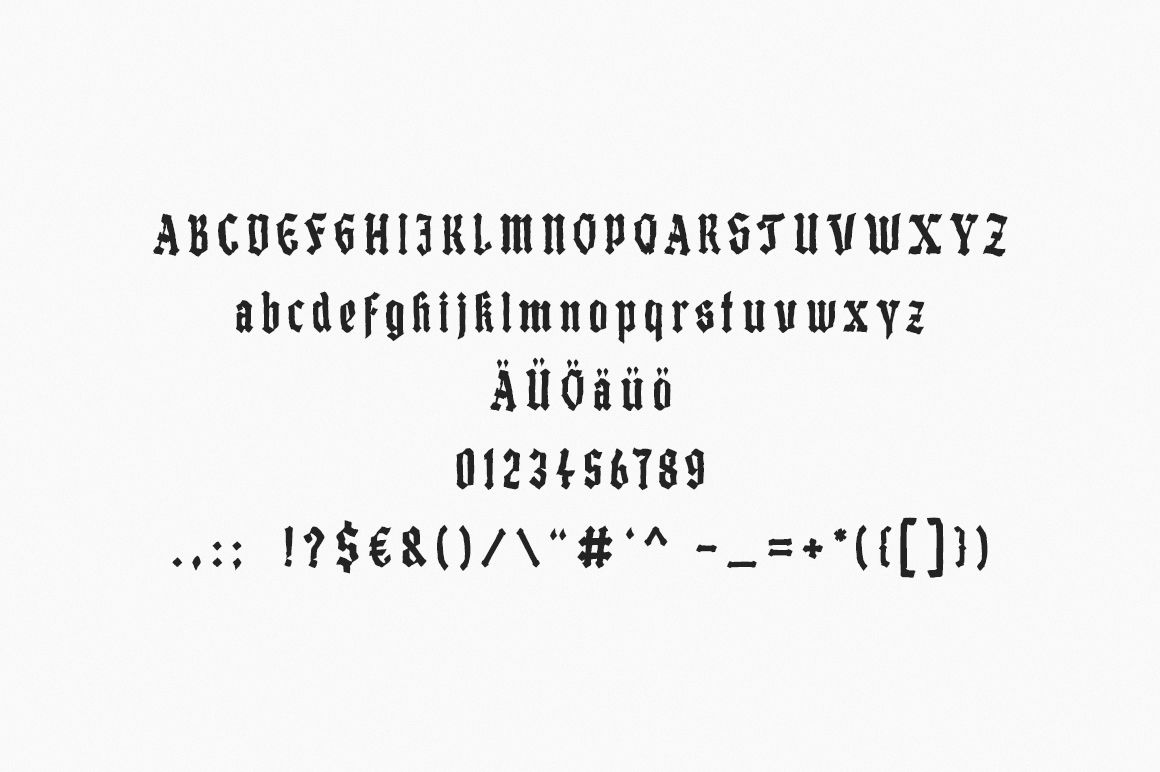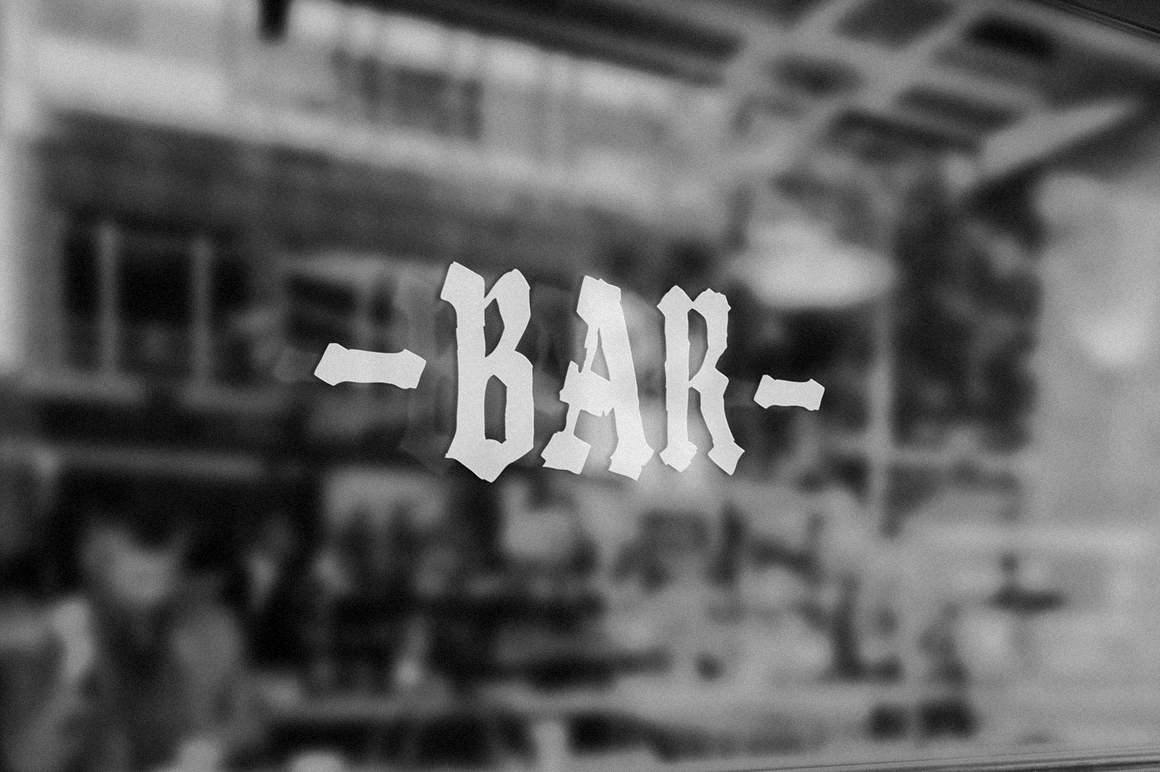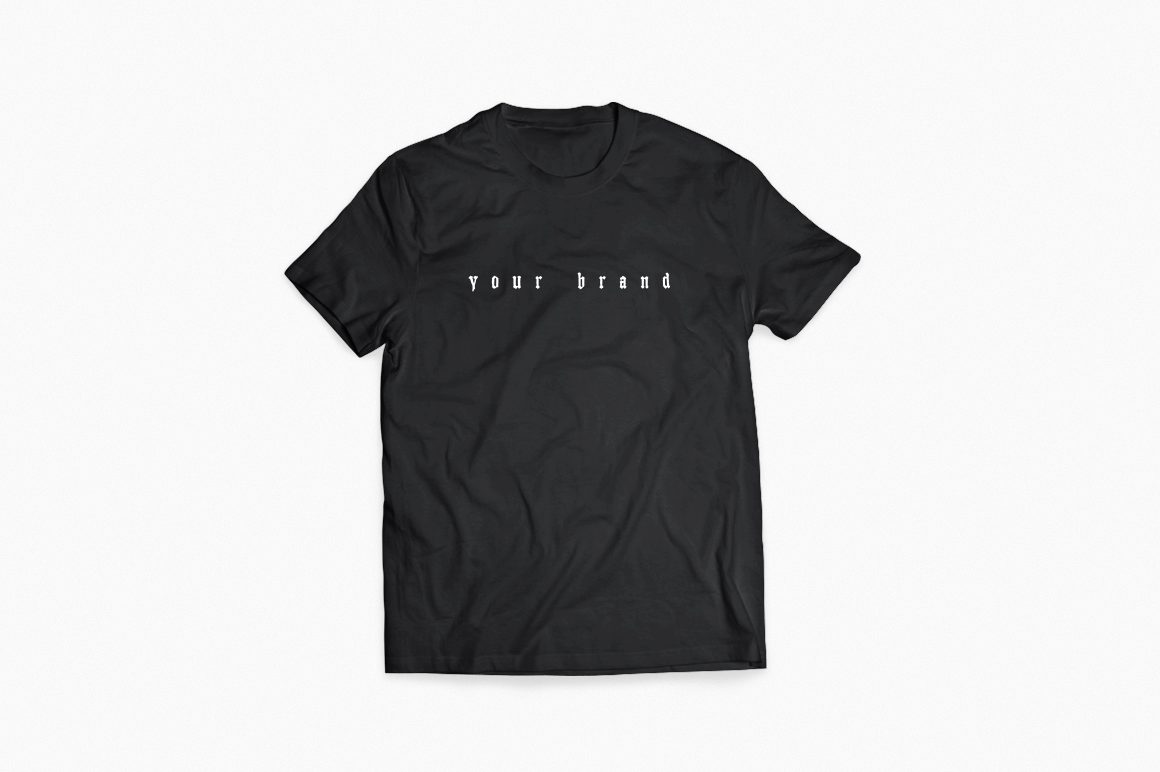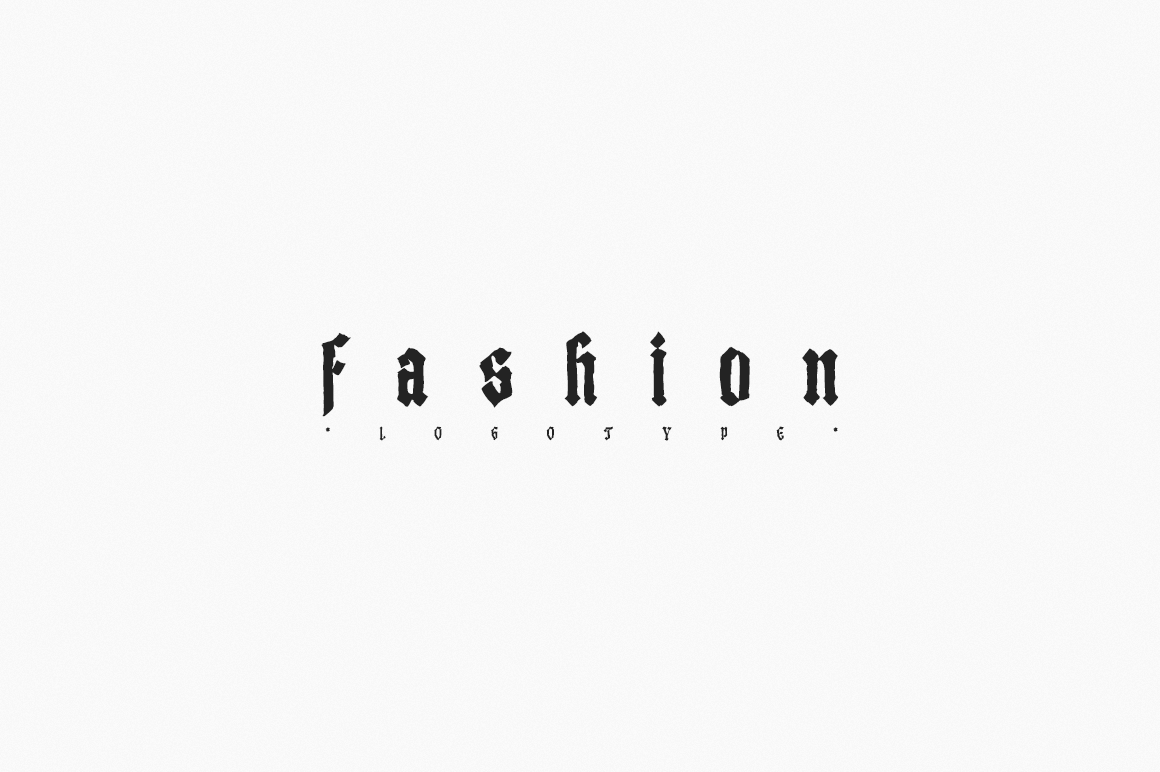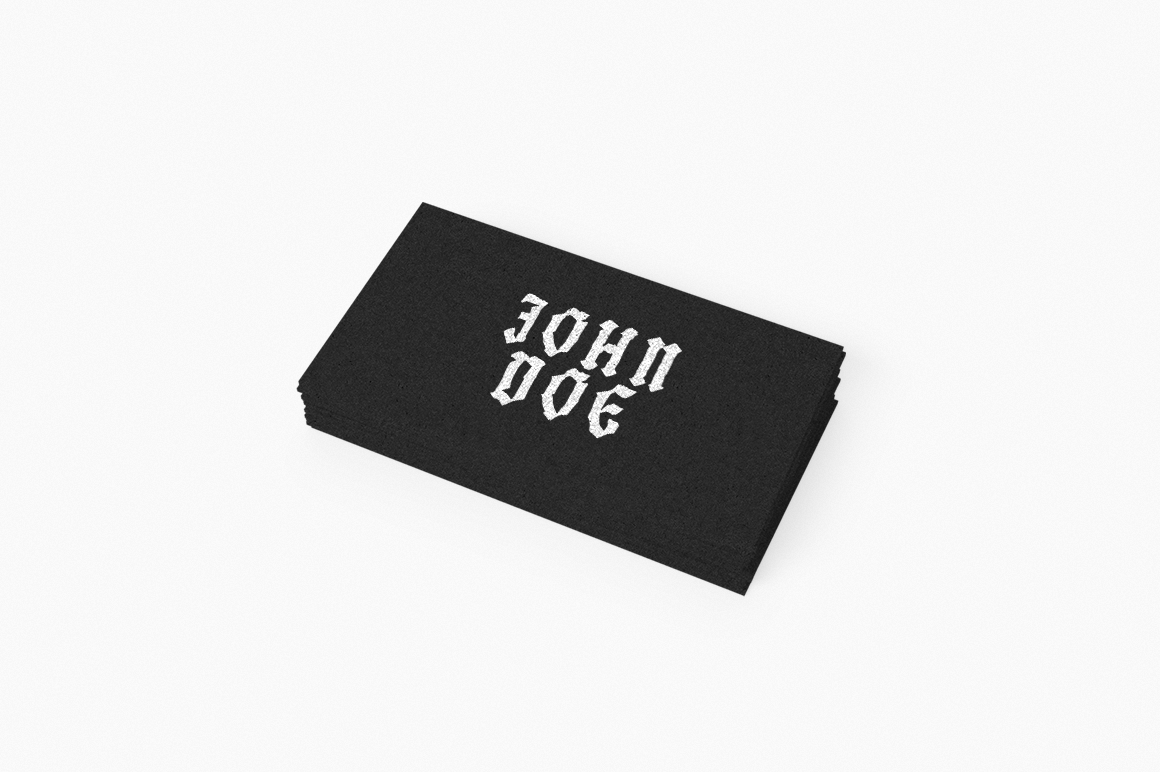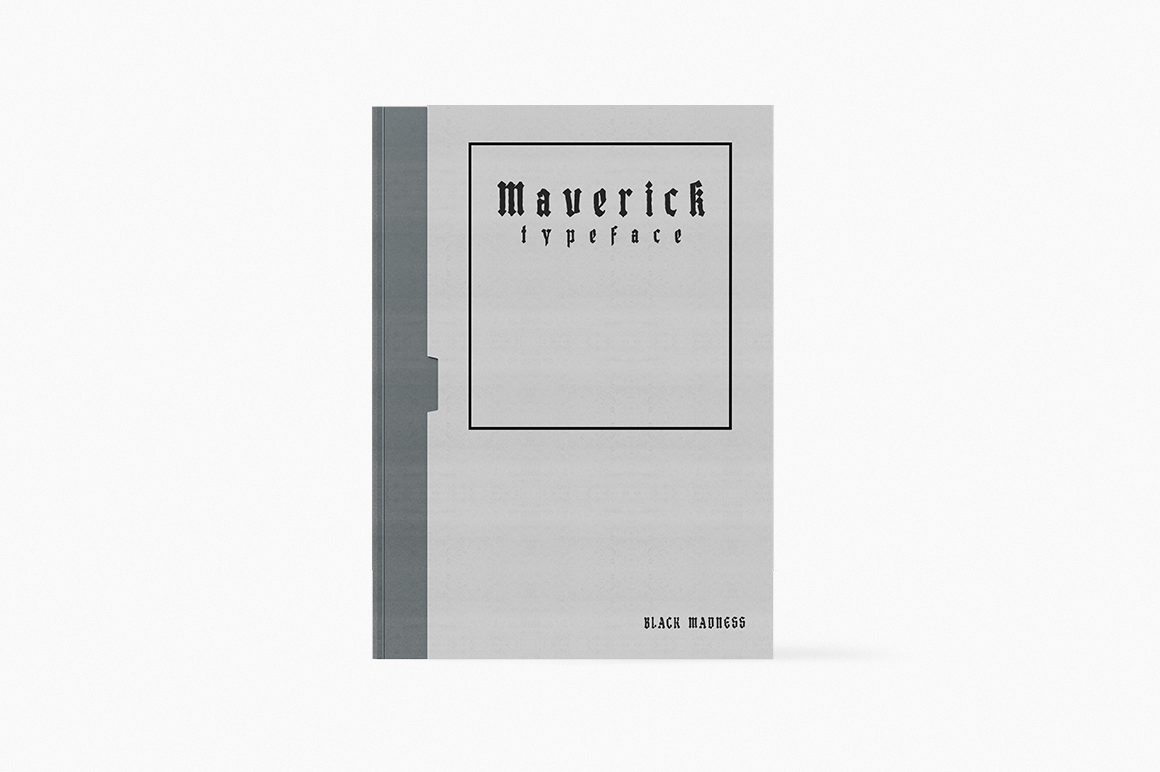
Black Madness Font
About Black Madness Font
Black Madness is a font inspired by blackletter typography, but instead of having clean and accurate lines it has an more abstract and intuitive look.